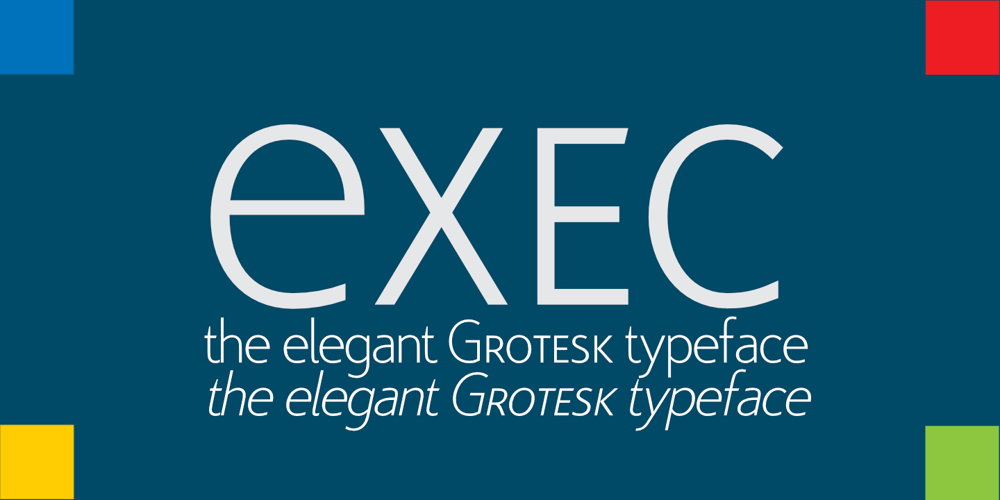
Exec Font Family was designed by Gert Wiescher and published by Wiescher Design. Exec contains 14 styles and family package options. I created my new »EXEC« sans font during the years 2018 to mid 2020. The Normal »EXEC«-family has 7 weights, ranging from Thin to Bold (plus 7 italics). This elegant Sans is suited for editorial, book text, advertising and packaging, logo, branding, small text as well as web and screen design. »EXEC« has advanced typographical support including ligatures, small caps, alternate characters, case-sensitive forms, fractions, super- and subscript characters. »EXEC« comes with a range of figures—oldstyle and lining figures, each in tabular and proportional widths. »EXEC« supports Basic-, Western-, and Central-European Latin-based languages.